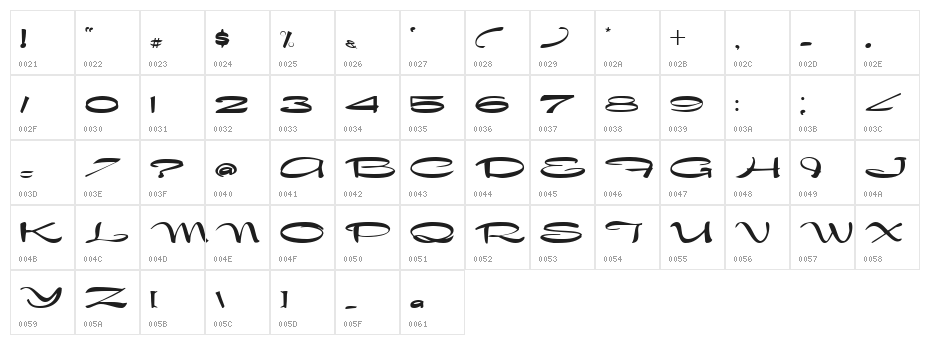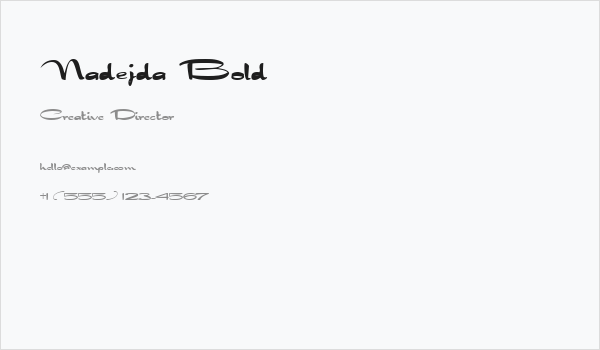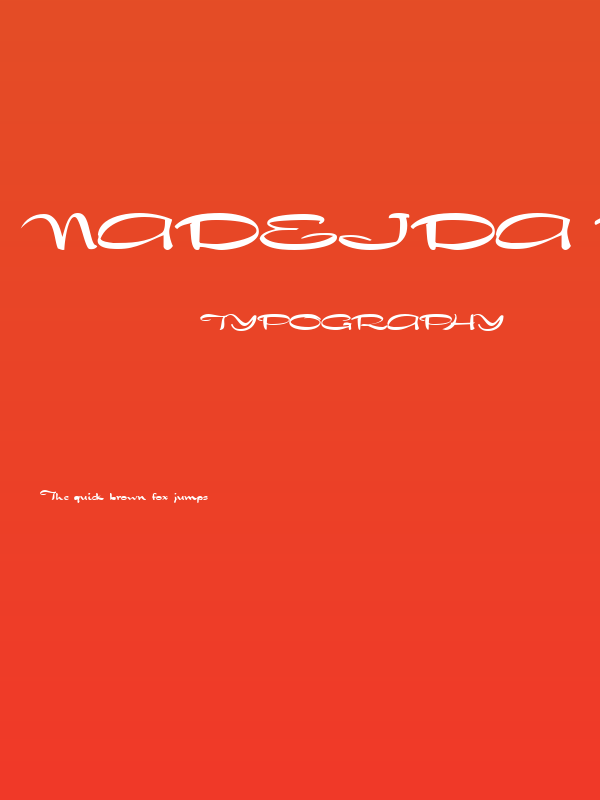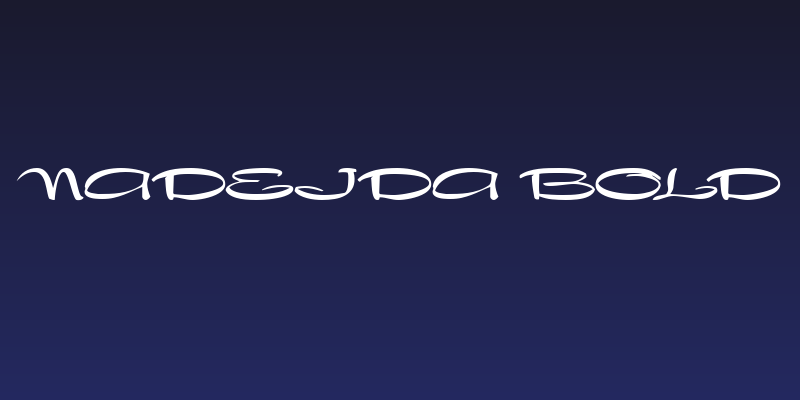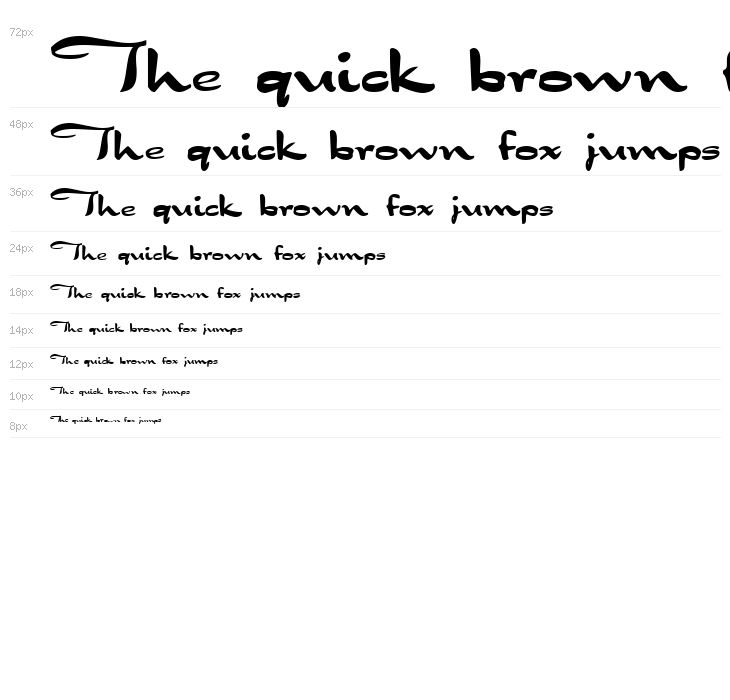
Nadejda Bold Font
Nadejda Bold Description
This font features a bold and dynamic style with a unique blend of curves and sharp edges. The uppercase letters are elongated and slightly slanted, giving a sense of movement and energy. The lowercase letters maintain a consistent flow, with rounded forms that contrast with the angular strokes of the uppercase. Numbers are bold and clear, ensuring readability. Special characters are creatively designed, adding a playful touch to the overall aesthetic. The font's design is both modern and artistic, making it suitable for various creative applications.